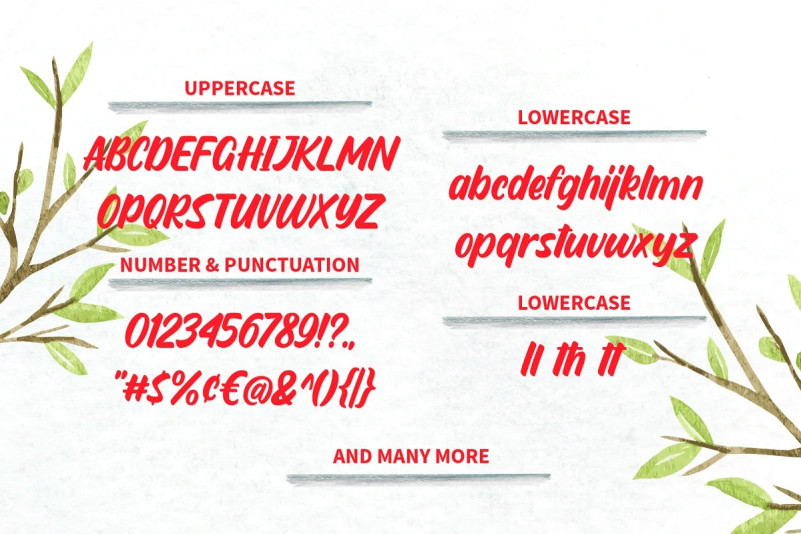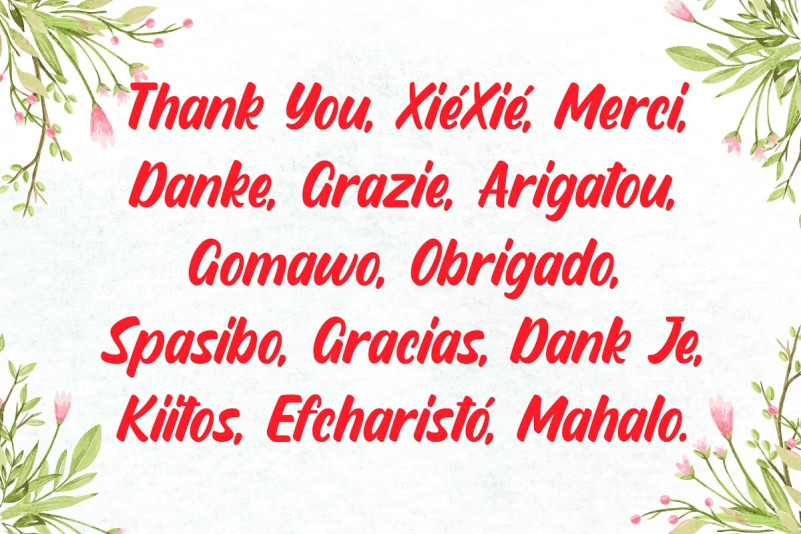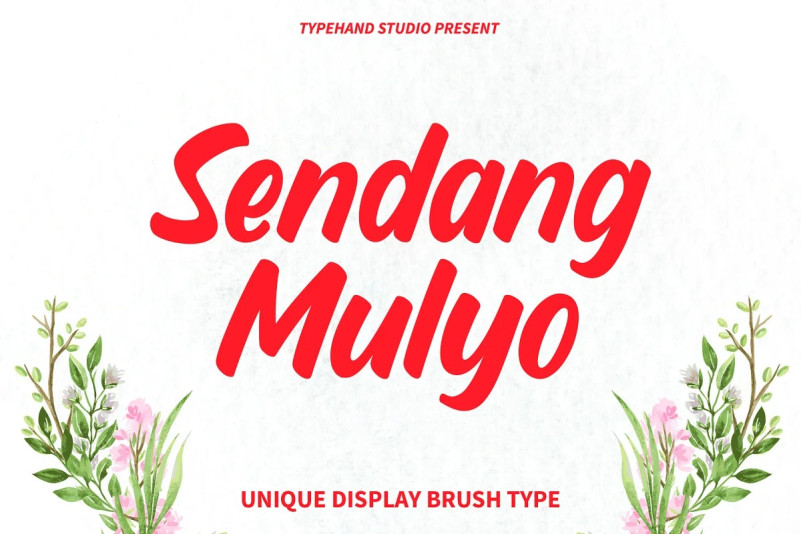
Sendang Mulyo Font
Sendang Mulyo Display Font is a lovely, paint brushed handwritten font. It is perfect for branding, packaging, t-shirt design, product designs, label, photography, watermark, invitation, stationery and any projects that needs a handwriting taste. Include Ligature, Multilanguage, Alternate.